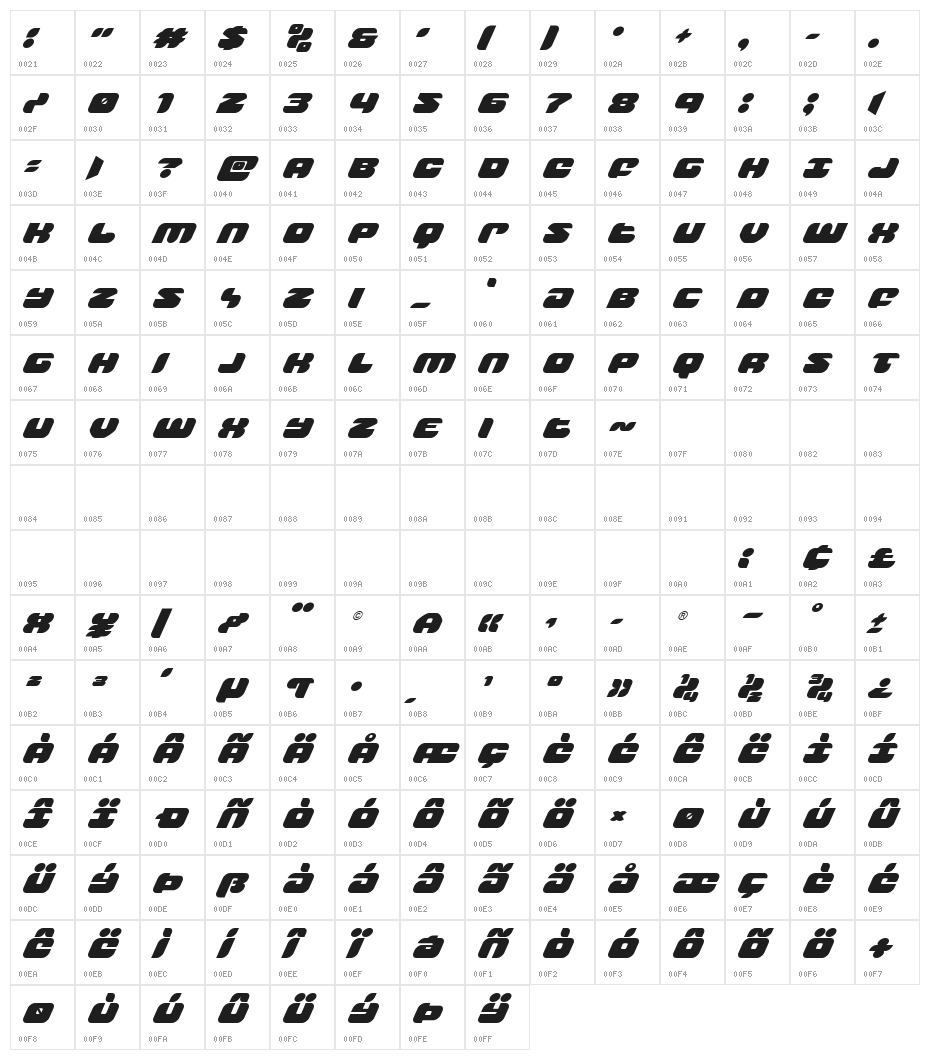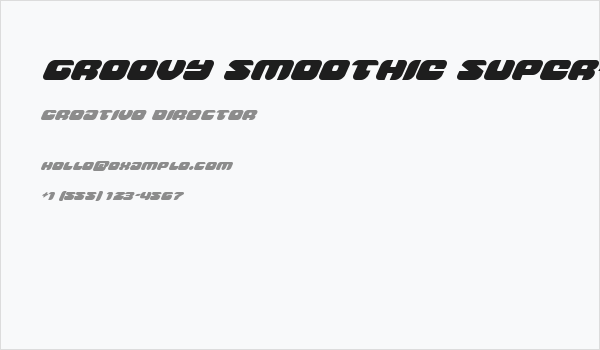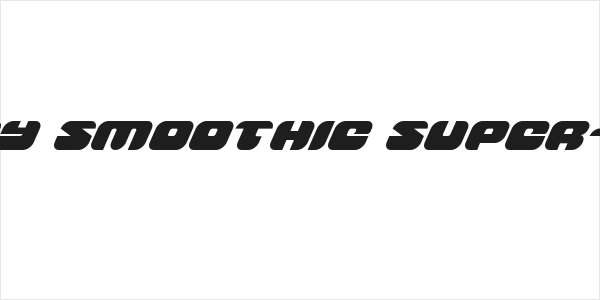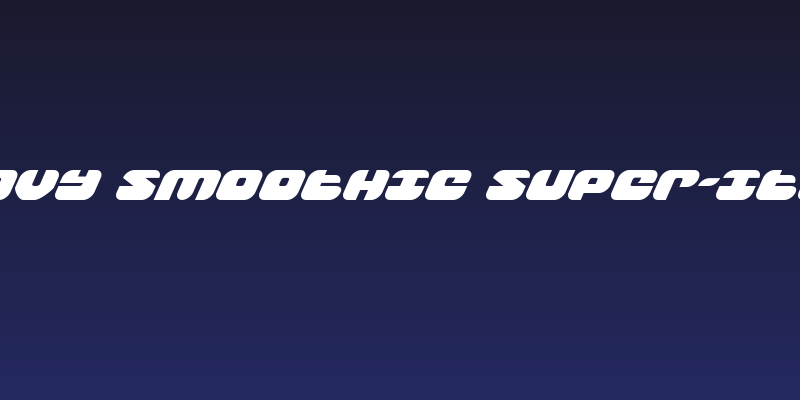
Groovy Smoothie Super-Italic Font
Groovy Smoothie Super-Italic Description
This font features a bold and smooth design with a distinctly italicized style. The characters are rounded with a consistent thickness, giving it a modern and playful appearance. The uppercase and lowercase letters maintain a uniform width, contributing to a cohesive look. The numbers and special characters follow the same design principles, ensuring a harmonious overall aesthetic. Its boldness and smooth curves make it stand out, while the italic slant adds a dynamic touch. This font is ideal for projects that require a fun and energetic vibe.
Proposed ProjectsPerfect for branding, posters, event flyers, and any project needing a lively and engaging font.